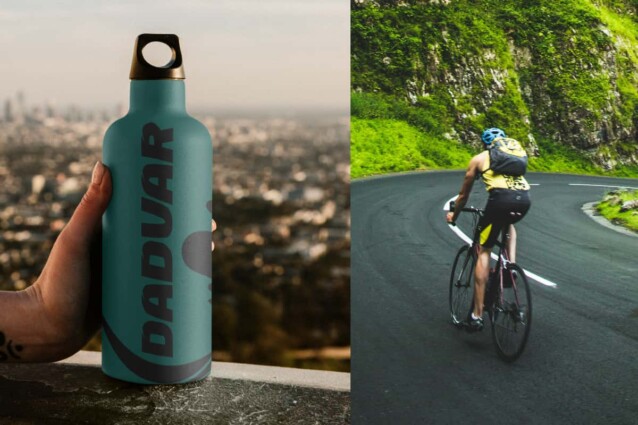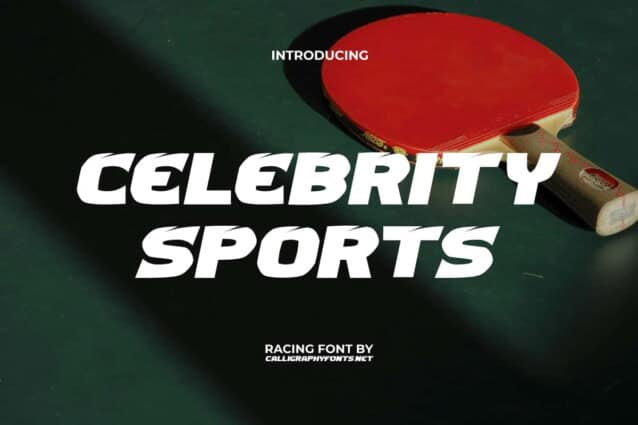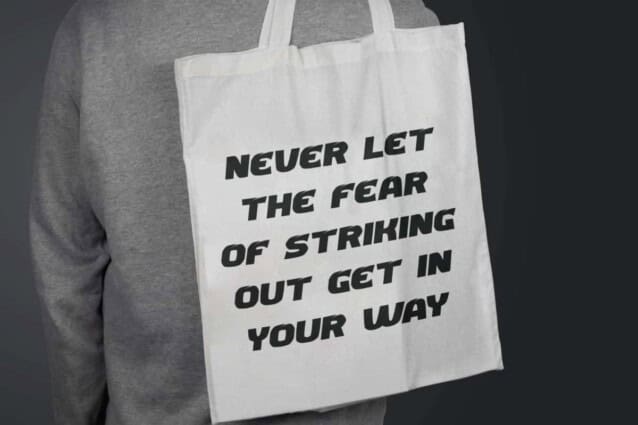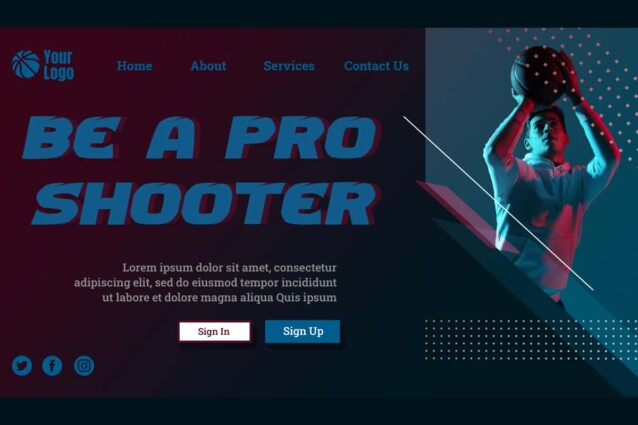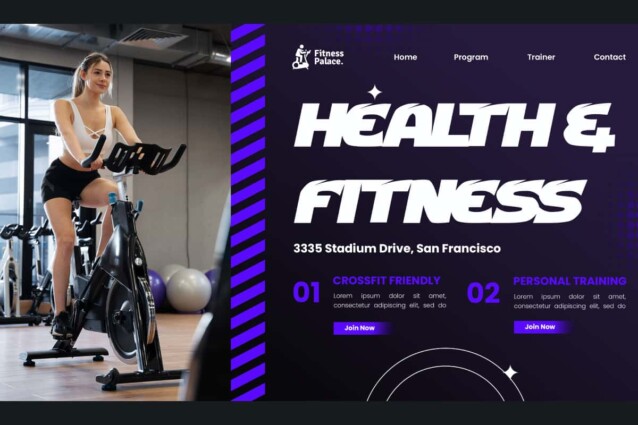
Celebrity Sports Font
Celebrity Sports Font is an awesome sports display font with a bold italic font that is modern and dynamic. Racing style with sharp decorations on the top corners that are consistent to make it look very fast and powerful. Ideal for automotive, fashion, game, gym fitness, racing sports, sports activities, sportwear, tumbler, etc.